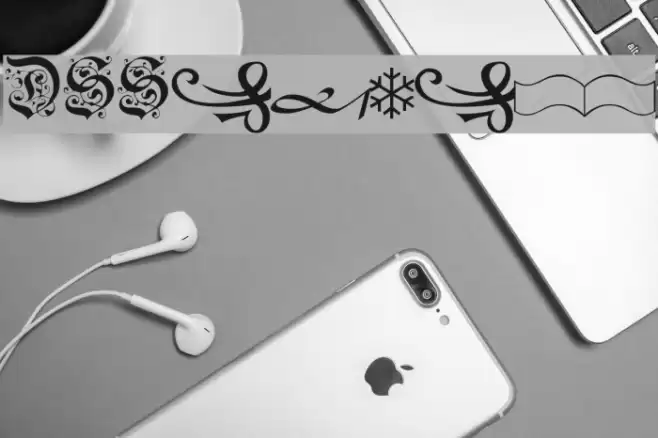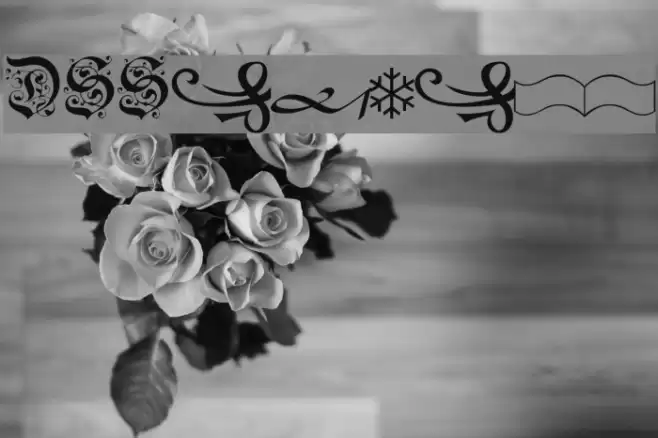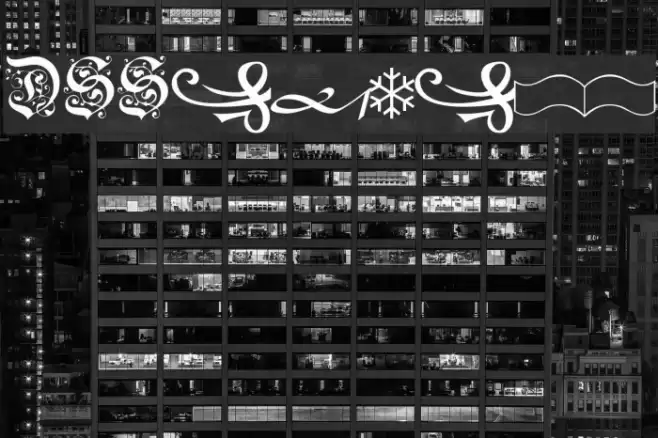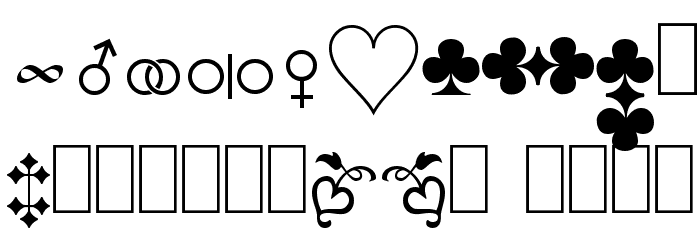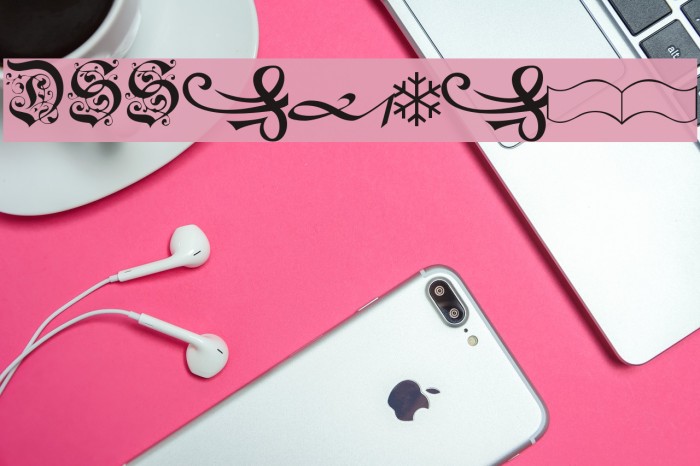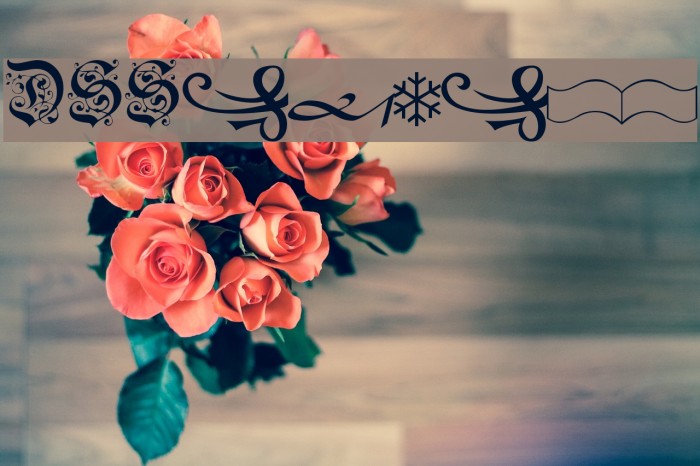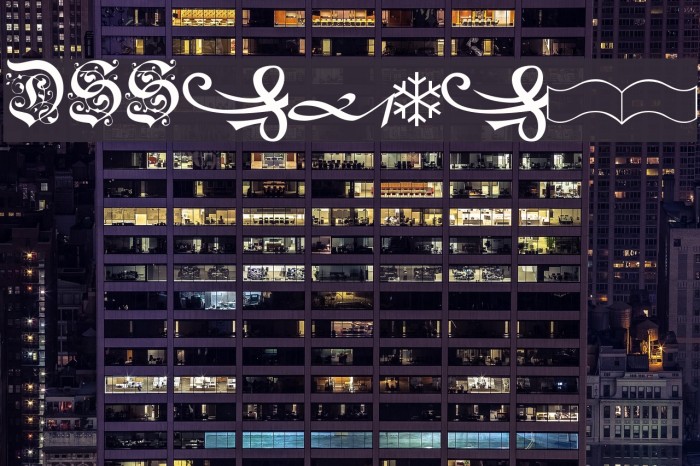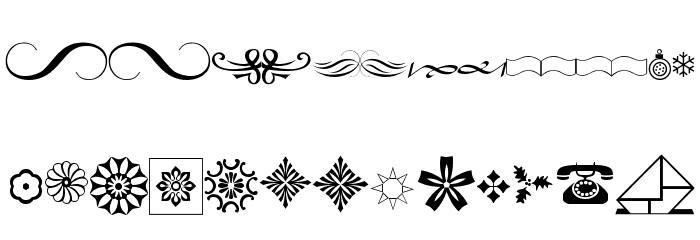
DS-Schmuck Font
DS-Schmuck Description
This font is a highly decorative and ornate typeface, characterized by intricate floral and swirl embellishments that adorn each letter. The uppercase letters are particularly elaborate, featuring a blend of traditional serif structures with additional decorative elements that give them a unique, artistic flair. The font includes a variety of ornamental symbols and shapes, such as flowers, geometric patterns, and other decorative motifs, which complement the elaborate style of the letters. This typeface is designed to capture attention and convey a sense of elegance and sophistication, making it suitable for projects that require a touch of luxury and artistic expression.
An ornate and decorative font with intricate floral embellishments from Uncategorized fonts.